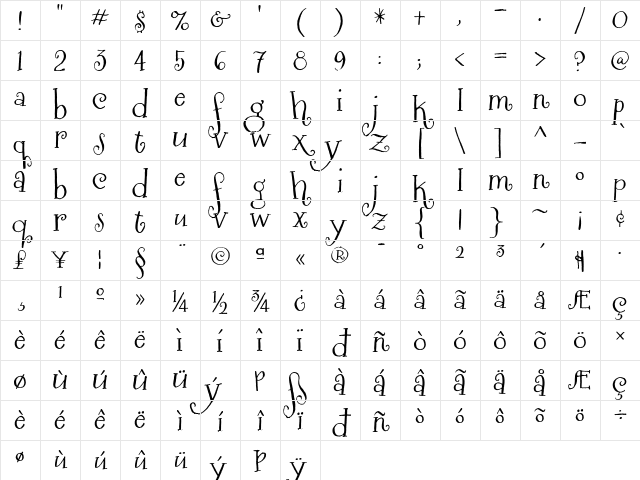
Complete Henparty Serif Medium glyph index. Displaying only characters natively supported by Henparty Serif Medium font.
Henparty Serif carries the refined structure of traditional serif typography, with bracketed terminals and considered proportions that communicate credibility and craft.